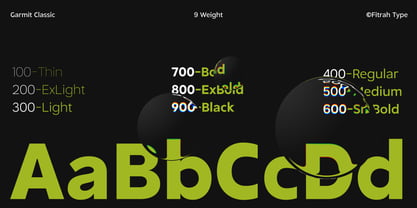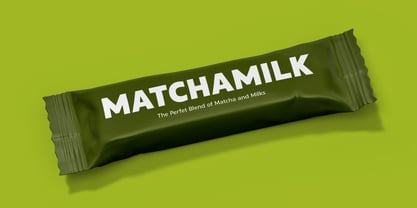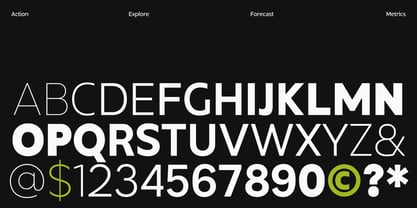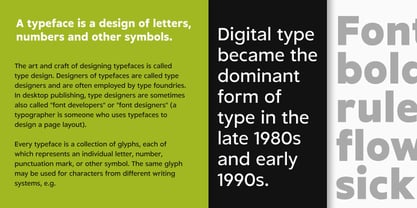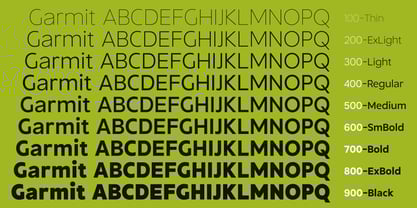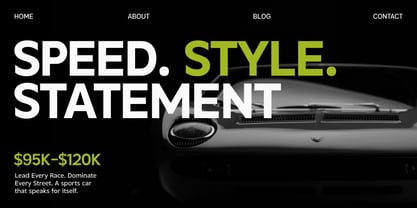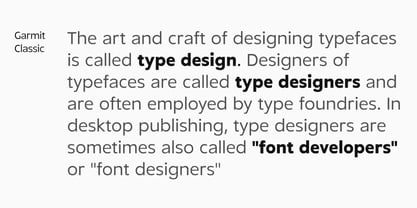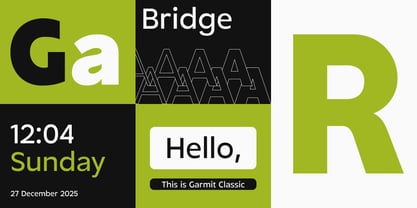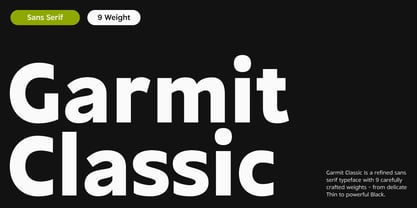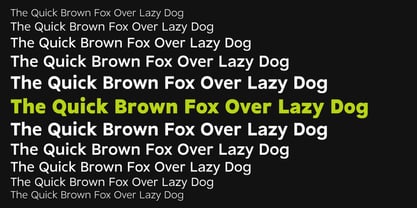
Garmit Classic
by Fitrah Type
The Garmit Classic Font Family was designed by Moch Fitrah Hidayat and published by Fitrah Type. Garmit Classic contains 9 styles and family package options. More about this family
Garmit Classic is a sophisticated sans serif typeface featuring 9 meticulously designed weights, ranging from the delicate Thin to the robust Black. This versatility allows it to adapt seamlessly to various creative applications, including branding, editorial design, and digital interfaces. With its clean geometry and balanced proportions, Garmit Classic excels in creating timeless typographic compositions. Each weight is engineered for optimal clarity, legibility, and visual harmony, making it perfect for both striking display headlines and body text. Whether you are developing a bold brand identity or a minimalist layout, Garmit Classic delivers exceptional performance and style.
Designers: Moch Fitrah Hidayat
Foundry: Fitrah Type